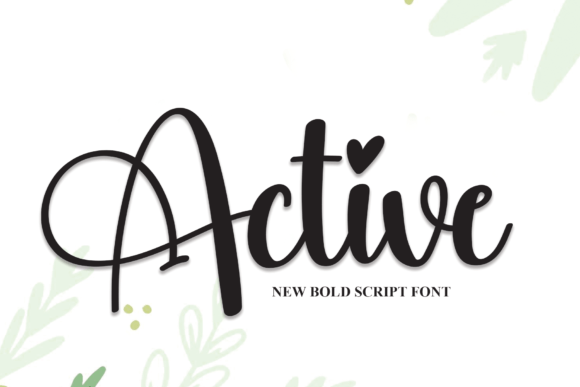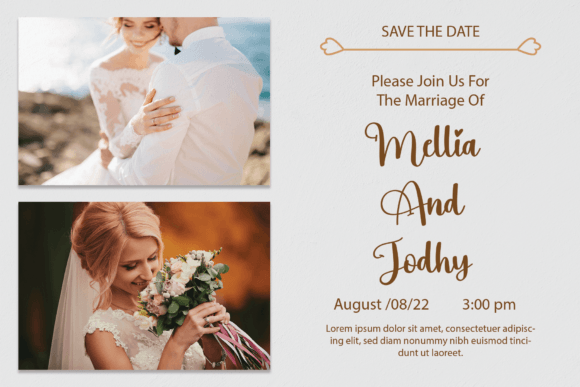
About Active Font
The latest style of this font brings a fresh and contemporary approach to handwritten typography, making it an excellent choice for a wide array of creative projects. One of its standout features is its suitability for **wall displays**, where its bold yet elegant letters can transform plain walls into captivating art pieces. Whether used for inspirational quotes, decorative phrases, or artistic installations, this font adds a touch of sophistication to any space.
When it comes to **wedding invitations**, the font’s latest style letters create a sense of romance and luxury. Its fluid and graceful strokes add a charming elegance to the invitations, setting the tone for a memorable celebration. Brides and grooms seeking a unique and personalized touch often opt for this font, as it adds a distinctive flair to their wedding stationery, making the event truly special.
In the realm of **social media**, having a recognizable and visually appealing logo is essential. The latest style of this font lends itself perfectly to **social media post logos**, adding a creative and eye-catching element to profiles and content. Its modern yet timeless design ensures that your social media presence remains stylish and engaging, capturing the attention of your audience and leaving a lasting impression.
**Advertisements** are all about catching the viewer’s eye, and this font does just that. Its contemporary letterforms and handwritten charm make it a standout choice for advertising campaigns. Whether used in print or digital ads, the font’s unique style draws attention and creates a sense of authenticity, making the advertisements more relatable and appealing to the target audience.
In the world of **product packaging and design**, the font’s latest style letters enhance the overall branding and presentation. From luxury goods to artisanal products, this font adds a touch of sophistication to **product packaging**. Its elegant and handwritten taste elevates the perceived value of the products, making them more desirable to consumers. Additionally, in **product designs**, the font can be creatively incorporated into labels, tags, and promotional materials, enhancing the visual identity of the products and making them more marketable.
For **photography**, the font’s handwritten charm can be utilized as a **watermark**, subtly enhancing the images without overpowering them. The font’s delicate yet distinctive style ensures that the watermark complements the photographs, adding a professional and artistic touch.
When it comes to **invitations and stationery**, the latest style of this font is a popular choice. Its elegant letters enhance the design of invitations for various events, from weddings to corporate functions. In **stationery**, it can be used for letterheads, business cards, and personalized notes, adding a touch of class to professional correspondence.
In essence, the latest style of this font is a versatile and invaluable asset for any project that requires a handwritten taste. Its ability to blend contemporary design elements with timeless elegance makes it a favorite among designers, enabling them to create visually stunning and impactful designs across a wide range of applications. Whether used for personal or professional projects, this font’s latest style letters are sure to captivate audiences and enhance the overall aesthetic of any creative endeavor.